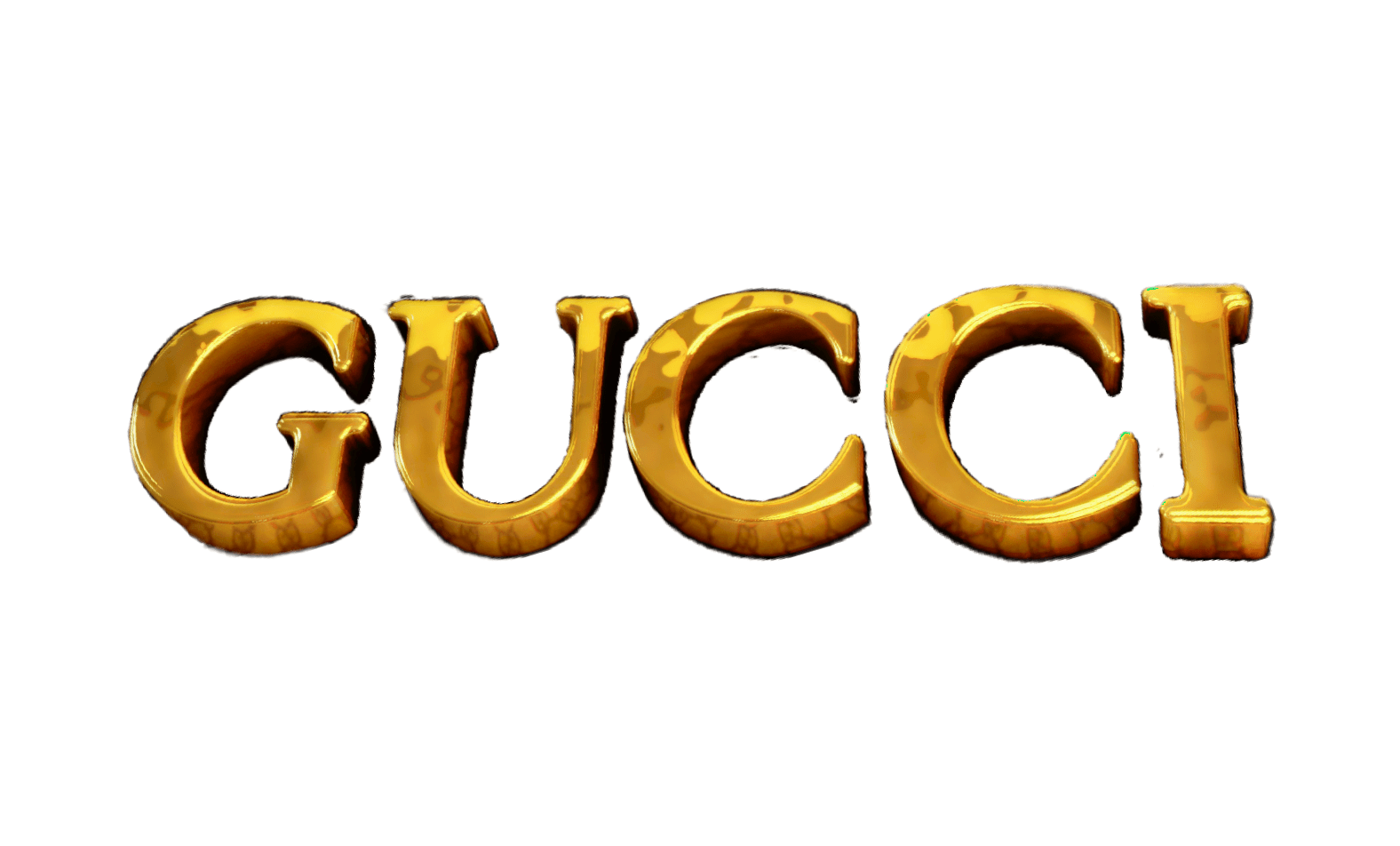
Gucci Font Similar. Gucci font has become a top choice of most of the designer when it just enters the market. The font being using in the gucci logo is known as granjon roman font family.
The interlocked double gs, which is a type of monogram, represents the initials of the founder, guccio gucci. Because the gucci logo has a lot in common with the granjon roman font. The interlocked double gs, which is a type of monogram, represents the initials of the founder, guccio gucci.
What Type Of Font Is Gucci?
This Is A Classy And Sophisticated Serif Font.
Gucci is a brand that everyone adores, but gucci font also tops the chart in the list of one of the highly used and liked typefaces. According to the font designers, gucci’s logo is based on a font that is very similar to granjon roman. According to the font designers, gucci’s logo is based on a font that is very similar to granjon roman.
On the other hand, the gucci logo has mesmerized people. The interlocked double gs, which is a type of monogram, represents the initials of the founder, guccio gucci. This is a classy and sophisticated serif font.
Granjon Roman Font Is Transitional Sans Serif Font.
In addition to granjon roman, there are two more styles of the granjon font family. According to the font designers, gucci’s logo is based on a font that is very similar to granjon roman. Last updated april 9, 2021.
It Is A Serif Typeface.
The font being using in the gucci logo is known as granjon roman font family. The interlocked double gs, which is a type of monogram, represents the initials of the founder, guccio gucci. Is there any font similar to gucci in google fonts?